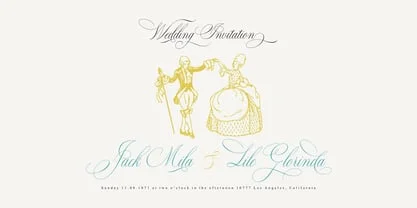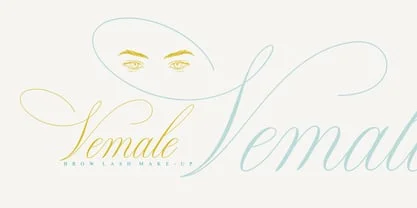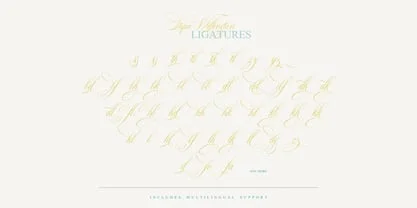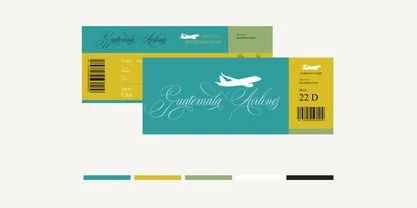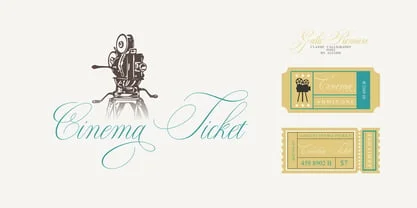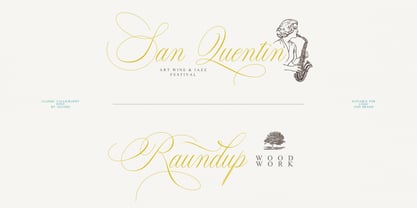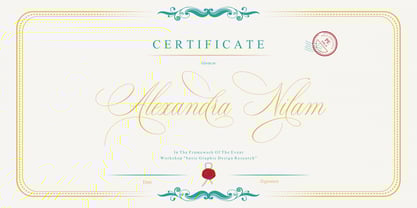
Stipa Willington Font
This Stipa Willington Font is perfect for natural botanical branding, prairie landscape designs, grassland conservation materials, agricultural heritage communications, organic farming publications, botanical research centers, wildlife preserve signage, environmental restoration projects, rural landscape photography, and authentic countryside business applications.
What makes this Stipa Willington Font exciting is its natural elegance that captures the graceful movement and resilient beauty of prairie grasses and botanical authenticity. The font features flowing letterforms with grassland characteristics that convey natural resilience, botanical sophistication, and environmental harmony. Its prairie character and nature-inspired design make it ideal for brands seeking to communicate environmental excellence, botanical authenticity, and natural conservation in agriculture and environmental markets.
The Stipa Willington Font family includes light, regular, medium, and bold weights with botanical alternates, prairie variants, and natural flourishes. This comprehensive environmental font family provides designers with organic typographic tools to create natural compositions while maintaining the grassland character essential for agricultural brands and environmental conservation communications.
Environmental organizations and agricultural businesses consistently choose Stipa Willington Font for projects requiring authentic botanical appeal and natural conservation credibility. This font's distinctive prairie character perfectly captures the environmental excellence and botanical beauty that resonate with audiences who appreciate natural landscapes, conservation efforts, and brands that embody sustainable agriculture and grassland preservation.
The resilient construction of Stipa Willington Font showcases naturally designed letterforms with botanical proportions that ensure exceptional organic appeal across all environmental applications. Its grassland appearance and natural character create memorable impressions while maintaining the readability necessary for effective conservation communication and agricultural materials.
Professional designers appreciate how Stipa Willington Font brings immediate botanical authenticity and environmental elegance to brand communications. The font's natural nature allows organizations to communicate conservation excellence and agricultural sustainability while maintaining the professional quality necessary for effective positioning in environmental and agricultural markets.
The harmonious appeal of Stipa Willington Font makes it particularly effective for brands emphasizing natural conservation, botanical research, and environmental sustainability. Its prairie character resonates strongly with audiences who appreciate grassland ecosystems, agricultural heritage, and brands that represent the graceful resilience and natural beauty of prairie environments.
Whether developing materials for conservation organizations or creating branding for sustainable agriculture, Stipa Willington Font provides the natural typographic foundation that environmental brands need to communicate their botanical excellence, conservation commitment, and the organic beauty that defines prairie conservation and sustainable agricultural achievement.